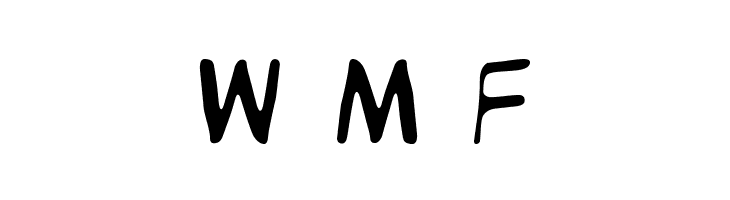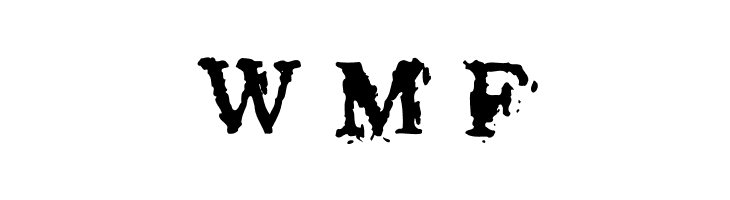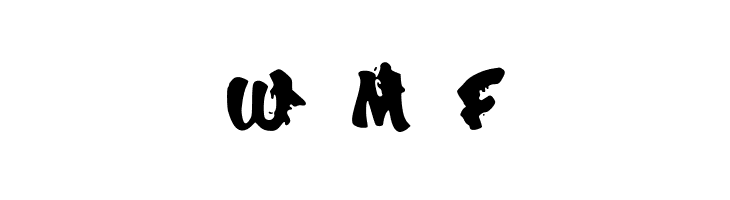
Dead Hardy Font
Font by Andrew Hart - dirt2.com
A playful and decorative font with quirky, spooky elements.
THE DESPICABLE DEADPOOL Font
Font by
spideraysfonts
A bold, comic-inspired font with unique graphic elements.
Dead end Font
Font by Jonathan Harris - www.tattoowoo.com
A bold, hand-drawn font with expressive, uneven strokes.
SEISDEDOS DEAD Bold Font
deFharo - Fernando Haro - defharo.com
A bold, stencil-style font with thick strokes and rounded edges.
Deadly Breakfast Font
Font by Mr Fisk - Mike Larsson - fontorama.net
A Gothic-style font with ornate, medieval-inspired characters.
Dead By Dawn US Font
A bold, edgy font with sharp, jagged edges and dynamic slanted forms.
CF Punk is not Dead Regular Font
Font by CloutierFontes
A bold, distressed font with a gritty, urban aesthetic.
Deadmobil Font
A bold, distressed font with a grunge texture and rugged appearance.
Deadpool Outline Font
A bold, geometric outline font with sharp angles and clean lines.
DEADCRT Regular Font
A glitch-inspired font with bold, digital distortion effects.
CSNPWDTNFI Font
Font by www.norfok.com - Norfok® Incredible Font Design - Thomas W. Otto
A bold, dripping font perfect for horror-themed designs.
dead wallace UP Font
A bold, playful font with a cartoonish, three-dimensional style.
DeadlyHeat Font
A gothic, ornate font with high contrast and decorative flourishes.
Seven deadly sins Font
Font by junkohanhero
A bold, distressed font with a rugged, vintage aesthetic.
Kylie Font
A pixelated, blocky font inspired by retro digital displays.
Deadly Inked Font
Font by www.dcoxy.com
A bold, dynamic script font with flowing, interconnected letters and dramatic flourishes.
Dead CircuitRegular Font
A bold, explosive font with jagged, energetic outlines.
Dead By Dawn UK Font
A bold, decorative font with a three-dimensional shadow effect and sharp serifs.
From_the_Dead Font
A bold, brush-stroke font with a textured, hand-painted appearance.